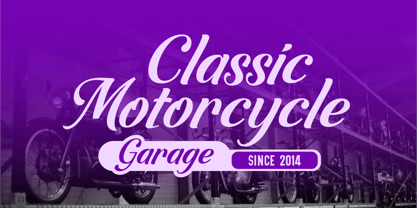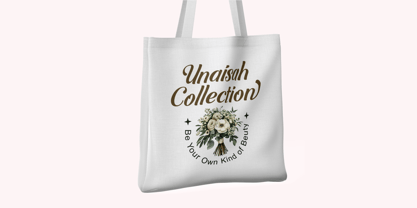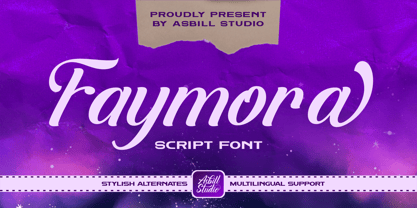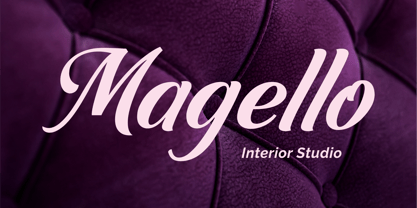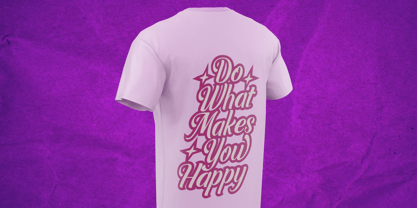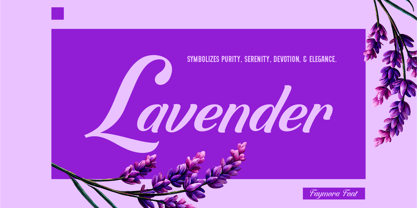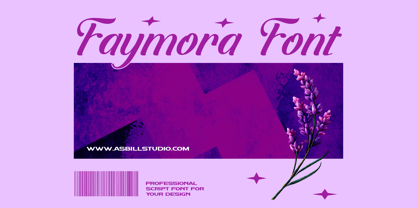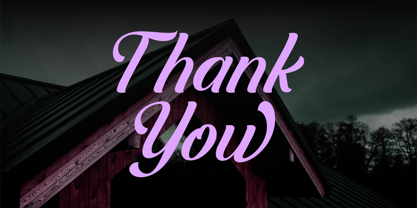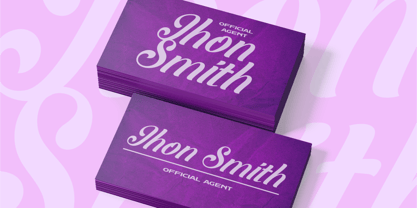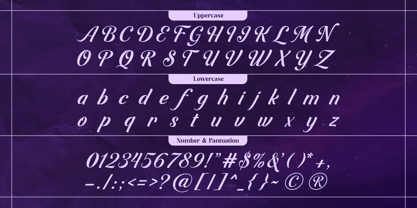
Faymora
The Faymora Font Family was designed by Ricky Ali and published by Asbill Studio. Faymora contains 1 styles. More about this family
Introducing Faymora, a beautifully crafted script font that exudes elegance and sophistication. With its graceful curves and refined letterforms, this typeface is designed to bring a luxurious touch to your creative projects. Perfect for logos, invitations, branding, packaging, business card, and other display design needs, it captures timeless beauty in every stroke.
Each character is carefully balanced to create harmonious flow and readability, making your designs look effortlessly stylish. Whether you're working on high-end fashion branding or romantic wedding stationery, Faymora adds a sense of class and charm that stands out.